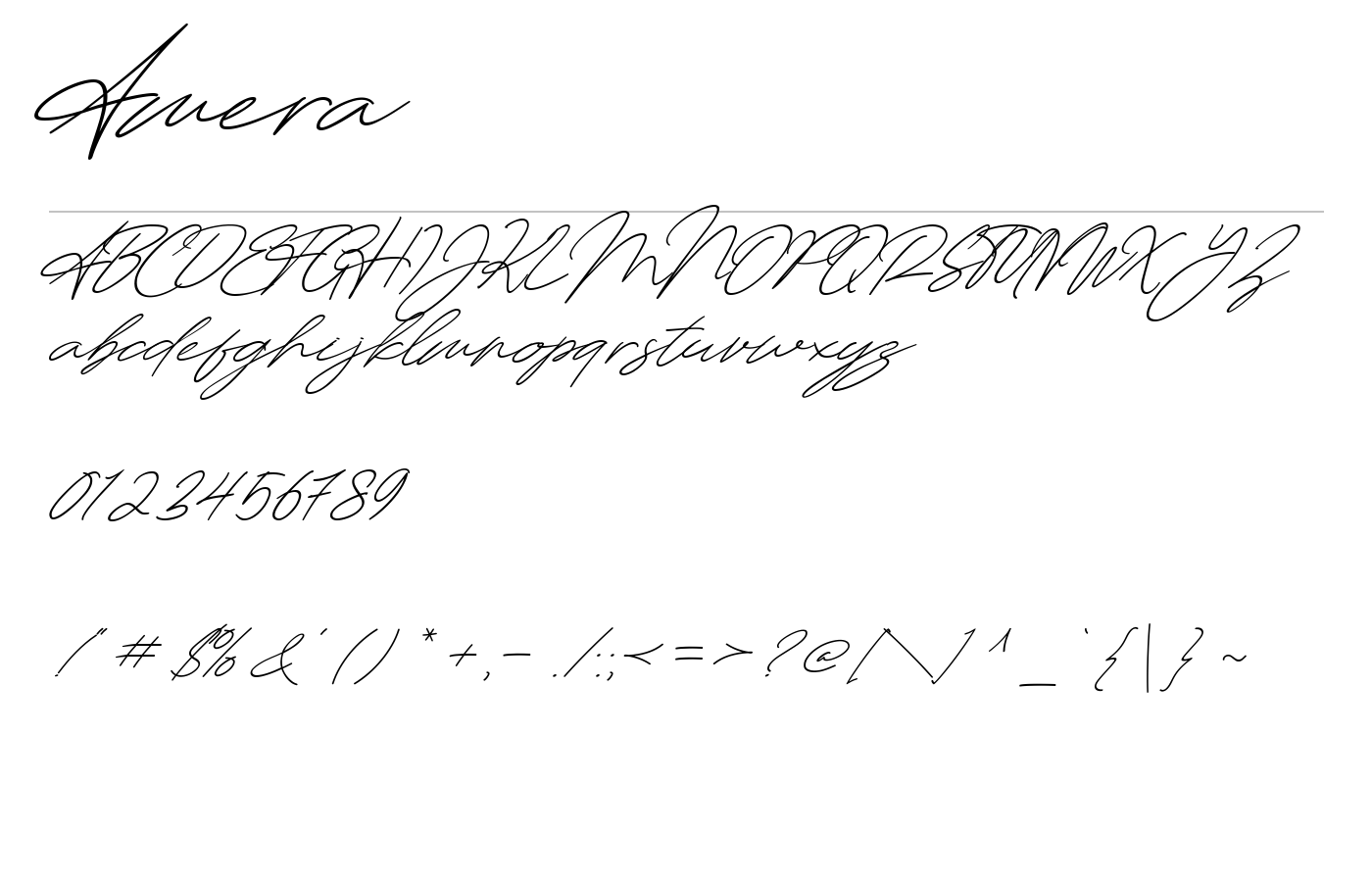
Amera is an elegant, flowing script font that mimics natural handwriting with its slender, smooth strokes and graceful curves. Its light weight and airy spacing give it a delicate, refined feel, making it ideal for sophisticated branding, invitations, and editorial use where a personal, stylish touch is desired. This font works beautifully for luxury and fashion projects that benefit from an expressive yet understated handwritten aesthetic.
Amera Font
About Amera Font
| Font family | Amera Font |
| Designer | Greafora Creative |